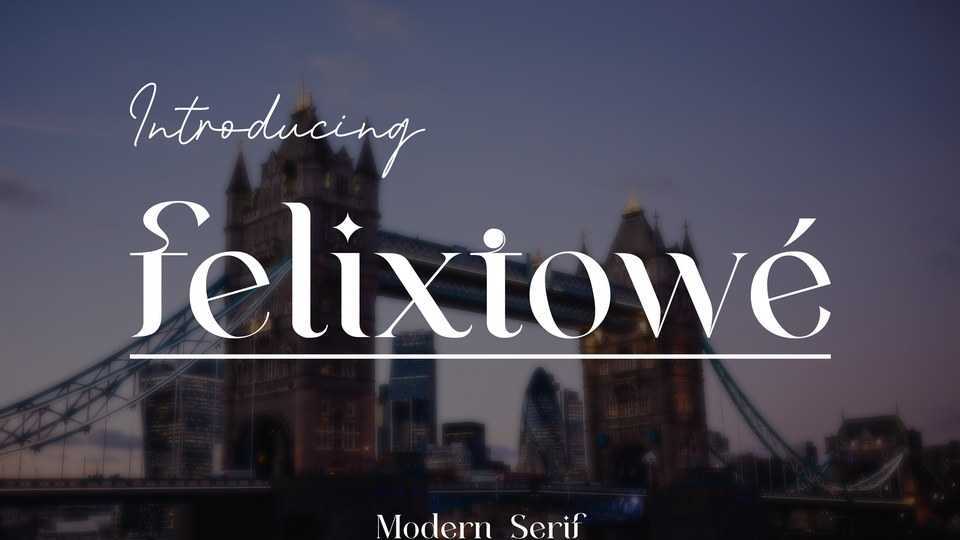
Download Felixtowe font, a elegant modern serif typeface intentionally made with a unique and alternating look. Felixtowe is perfect for use in all your design projects whether it’s logo, wedding, fashion, poster and more.
Designer: Fansara Studio